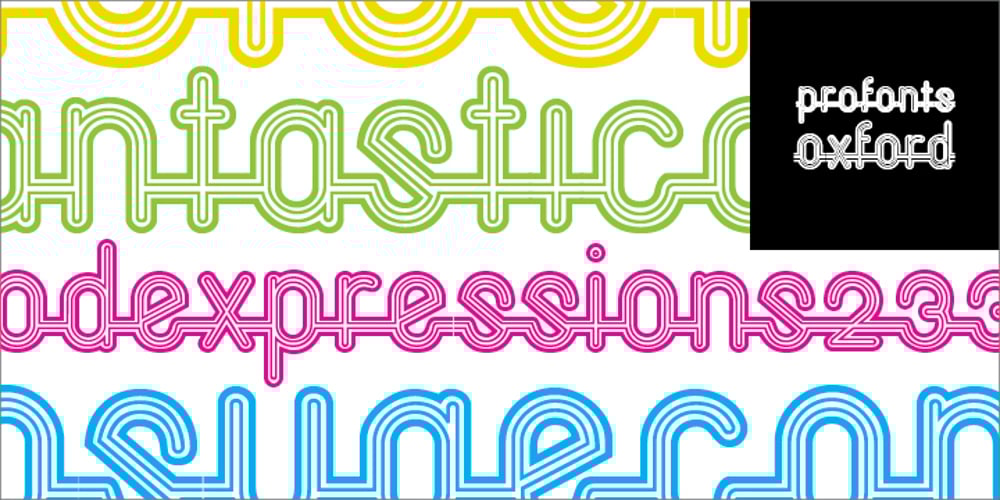
Oxford
Oxford font
Oxford Font Family was designed by Christine Lord and published by profonts. Oxford contains 1 styles and family package options. profonts Oxford was originally designed by Christine Lord in 1960 and digitally re-mastered by profonts in 2009. The font contains lower case characters only. It is a multi-line display design with a continuous connecting horizontal line that combines all characters. This combination makes it special and very sporty. profonts Oxford is ideal for any design of sporting character.